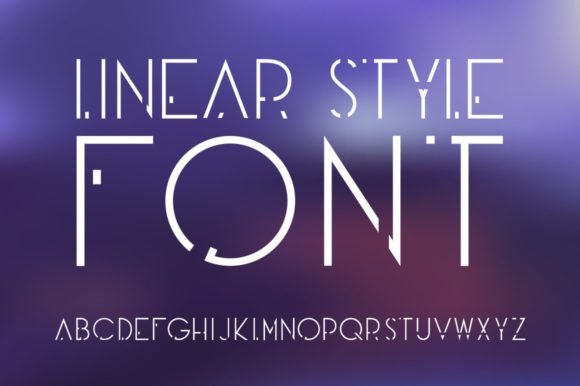
Introducing Linear Style Font, the font that will revolutionize your streetwear designs. This futuristic, neat display font is perfect for creating eye-catching logos, web creations, and headlines that will make your brand stand out from the crowd.
With its clean lines and sharp angles, Linear Style Font exudes a sense of modernity and innovation. This font is perfect for brands that want to convey a sense of progress and forward-thinking. Whether you're designing a new logo for your streetwear brand or creating a website that showcases your latest collection, Linear Style Font will help you create a look that is both stylish and unforgettable.